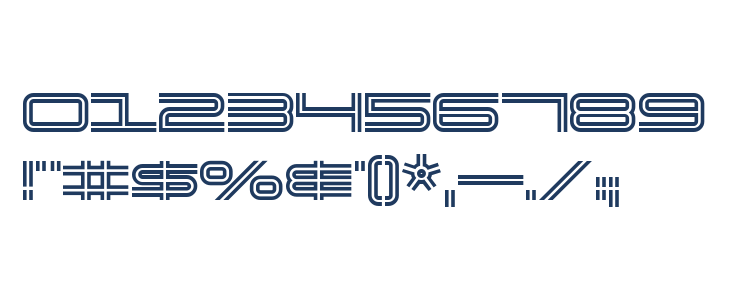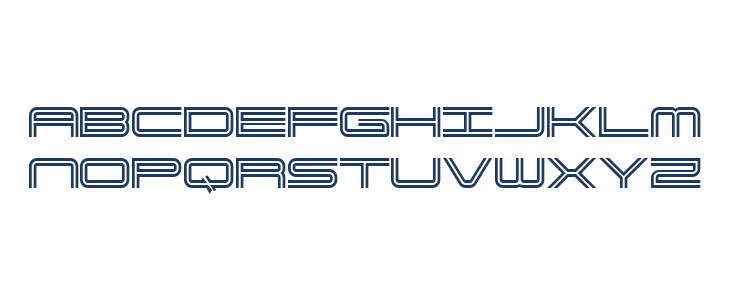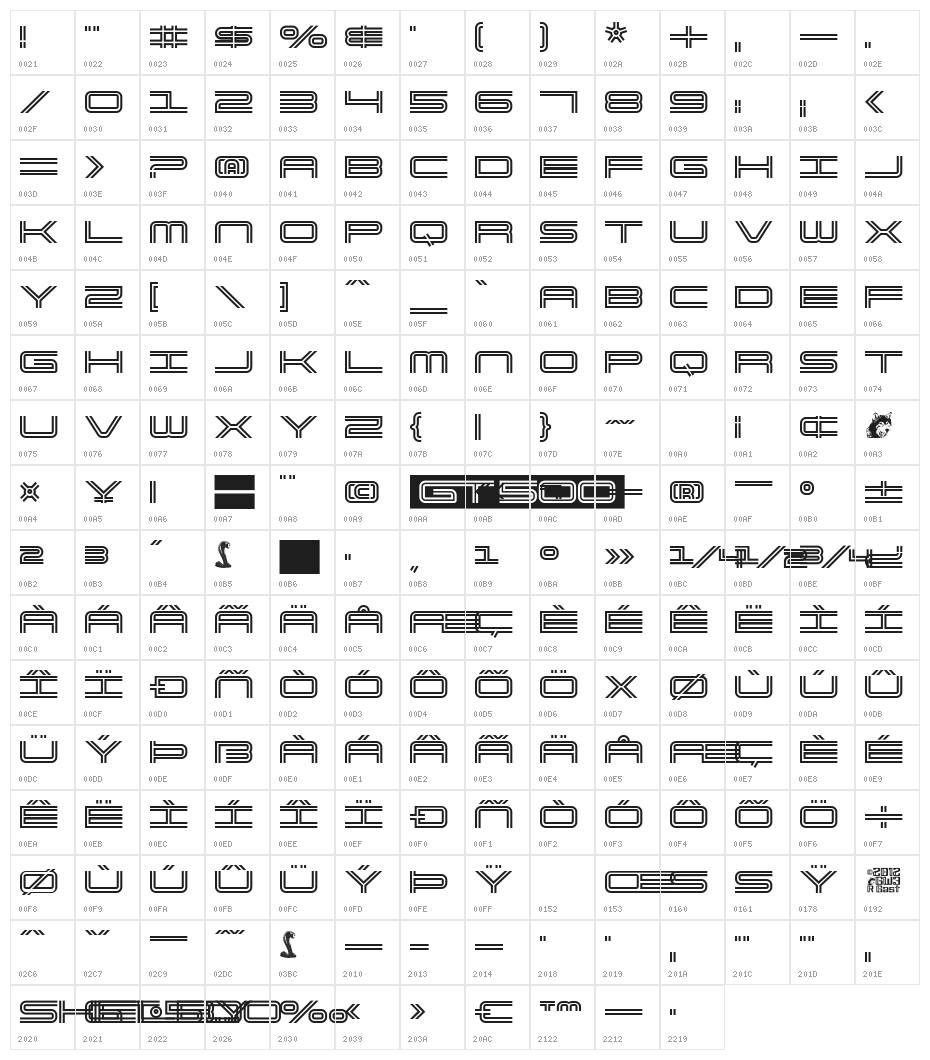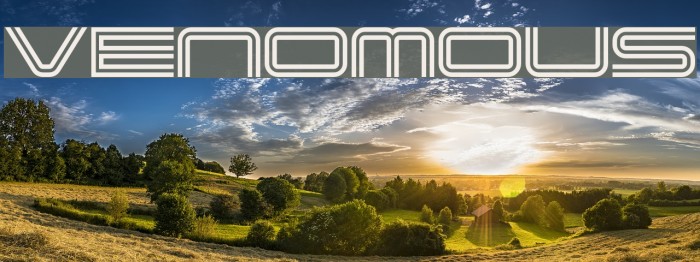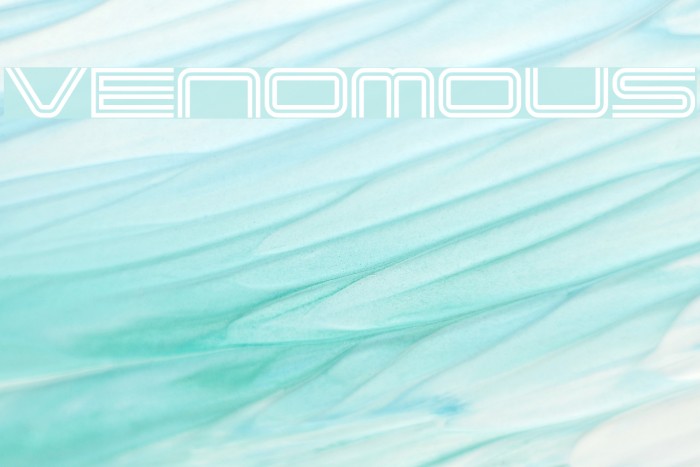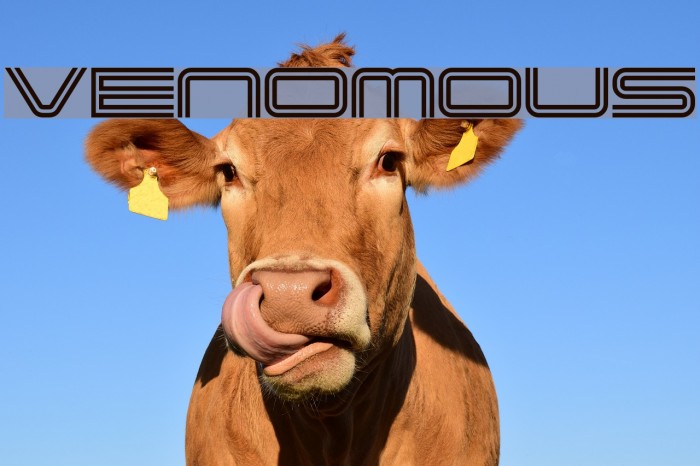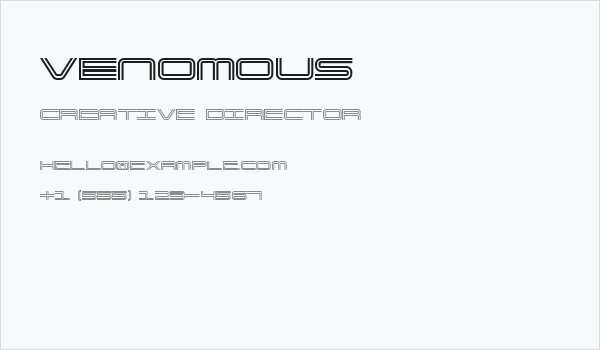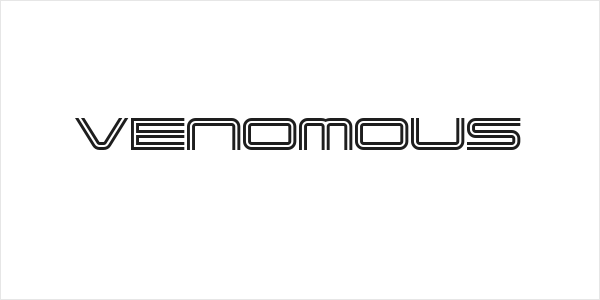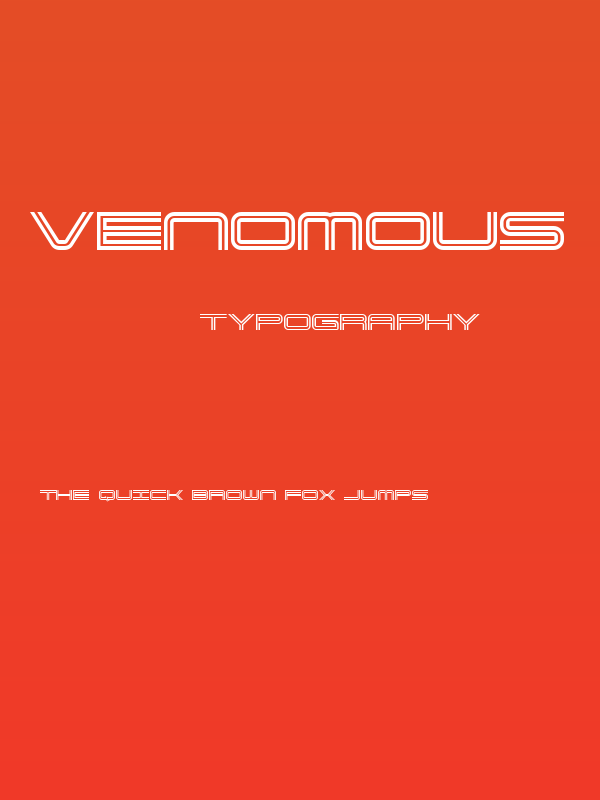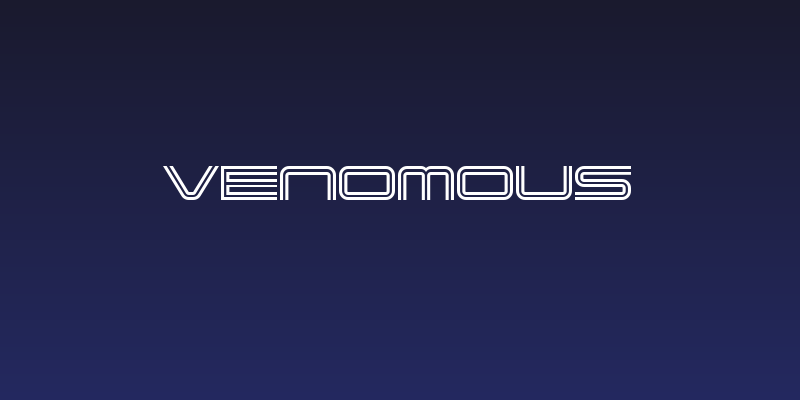
Venomous Font
Venomous Description
This font features a futuristic and geometric design, characterized by its double-line structure that creates a sense of depth and dimension. The uppercase and lowercase letters maintain a consistent height, contributing to a uniform appearance. The numerals and special characters follow the same stylistic approach, ensuring cohesion across all elements. The font's clean lines and modern aesthetic make it suitable for projects that require a contemporary and tech-inspired look. Its unique style is eye-catching and can add a distinctive touch to any design.
| Proposed Projects | Ideal for technology branding, sci-fi posters, video game titles, and modern advertising. |